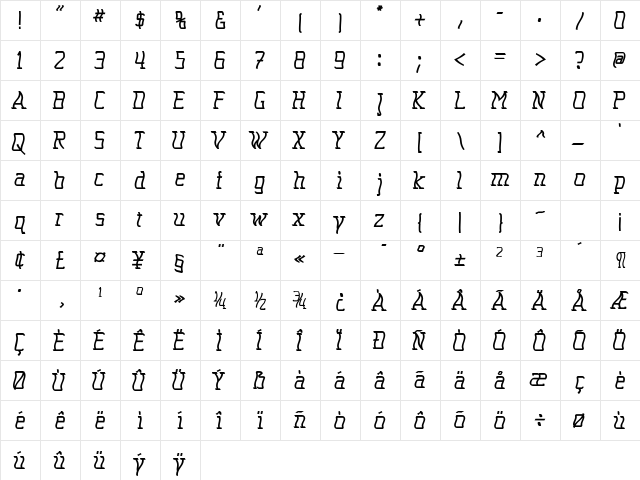
SeasickMirror Bold
Design Context for SeasickMirror Typeface
SeasickMirror is a composed and adaptable typeface that performs quietly and consistently across a wide range of design contexts. Its bold stroke weight gives it real presence on the page.